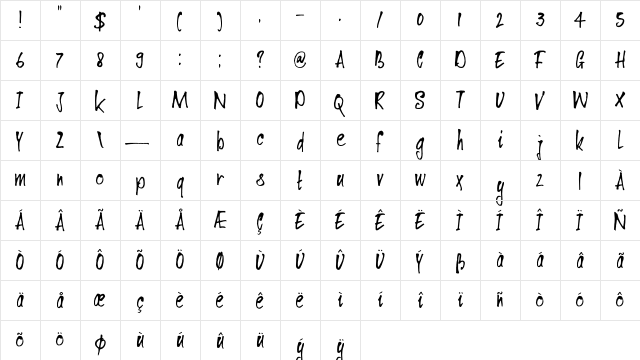
DK Ventana Regular
Foundry: David Kerkhoff
Designer: David Kerkhoff
Design Context for DK Ventana
DK Ventana is a composed and adaptable typeface that performs quietly and consistently across a wide range of design contexts.
Who designed the DK Ventana Regular font?